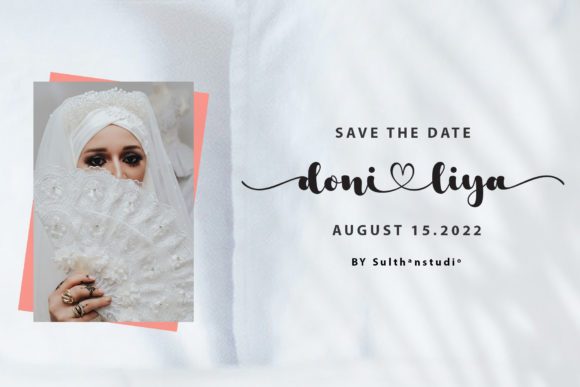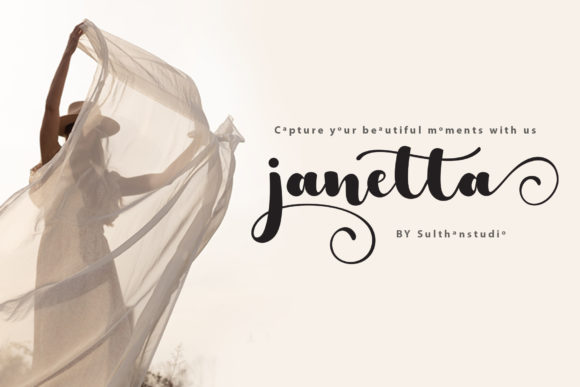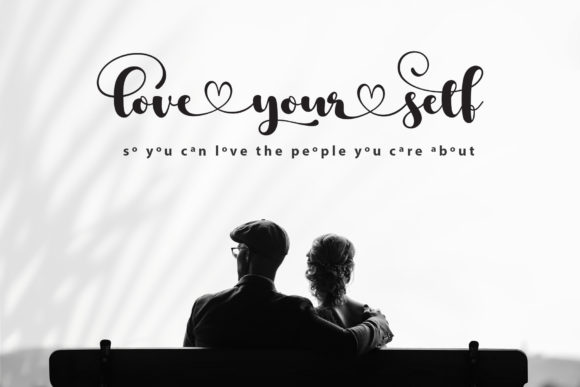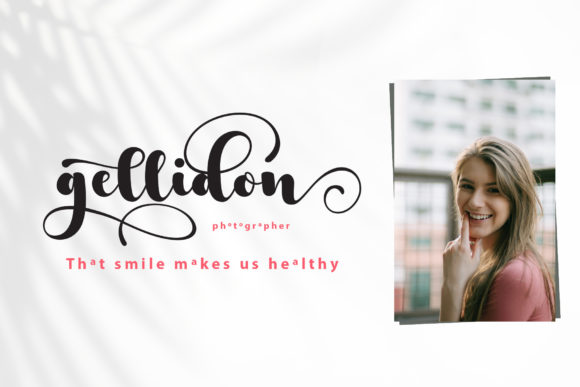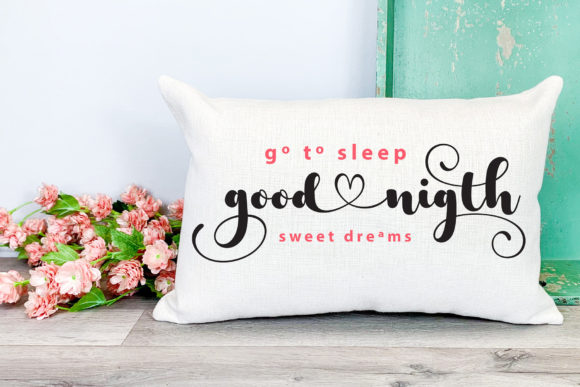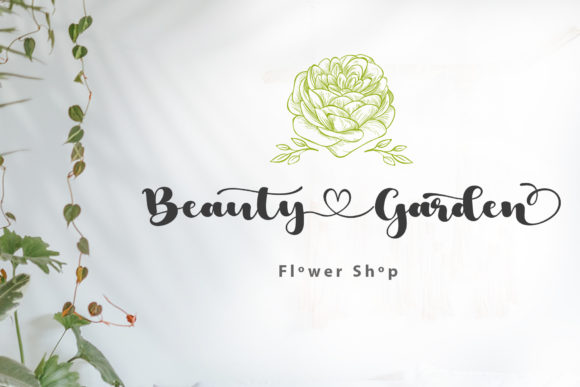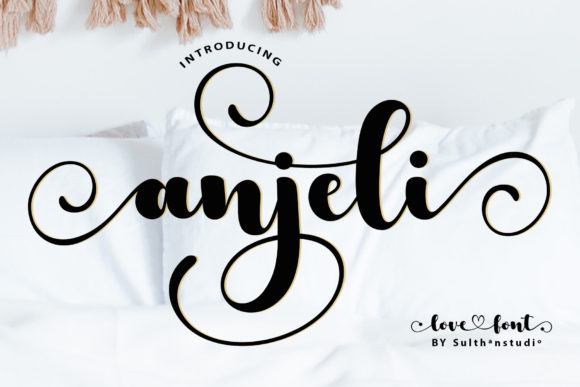
Introducing Anjeli Font: The Ultimate Calligraphy Typeface for Luxurious Designs
Are you a designer or crafter looking for a font that can add a touch of elegance and sophistication to your design projects? Look no further than Anjeli Font, a romantic and sweet calligraphy typeface that is sure to make your designs shine. With its unique and flowing characters that dance along the baseline, Anjeli Font is the perfect choice for anyone looking to add a luxury spark to their work.
What Makes Anjeli Font So Special?
Anjeli Font is a beautifully crafted calligraphy typeface that is designed to make your designs stand out. Its characters are carefully crafted to dance along the baseline, creating a sense of movement and fluidity that is sure to capture the eye. Whether you’re working on a branding project, a wedding invitation, or a packaging design, Anjeli Font is the perfect choice for adding a touch of elegance and sophistication.
PUA Encoding for Easy Access to Glyphs and Ligatures
One of the things that sets Anjeli Font apart from other fonts is its PUA (Private Use Area) encoding. This means that you can access all of the amazing glyphs and ligatures with ease, making it simple to create beautiful and unique designs. With PUA encoding, you don’t have to worry about complicated font editing software or tedious workarounds – simply install the font and start designing!
Anjeli Font is perfect for designers and crafters who want to add a touch of luxury to their work. Whether you’re creating digital designs or handmade crafts, this font is sure to inspire your creativity and help you produce stunning results. From wedding planners and stationery designers to crafters and makers, Anjeli Font is the perfect choice for anyone looking to add a touch of elegance and sophistication to their designs.
How to Use Anjeli Font in Your Designs
- Use Anjeli Font for headings and titles to add a touch of elegance and sophistication to your designs.
- Pair Anjeli Font with other fonts to create a unique and eye-catching design.
Benefits of Using Anjeli Font
There are many benefits to using Anjeli Font in your designs. Here are just a few:
- Adds a touch of elegance and sophistication to your designs.
- Unique and flowing characters that dance along the baseline.
- PUA encoded for easy access to glyphs and ligatures.
- Perfect for designers and crafters who want to create luxurious designs.
In conclusion, Anjeli Font is a beautiful and elegant calligraphy typeface that is perfect for designers and crafters who want to add a touch of luxury to their designs. With its unique and flowing characters, PUA encoding, and ease of use, Anjeli Font is the perfect choice for anyone looking to create stunning designs. So why wait? Download Anjeli Font today and start creating your own luxurious designs!
Key Features of Anjeli Font
- Romantic and sweet calligraphy typeface.
- Characters that dance along the baseline.
- PUA encoded for easy access to glyphs and ligatures.
- Perfect for designers and crafters.
- Adds a touch of elegance and sophistication to designs.
By incorporating Anjeli Font into your design projects, you’ll be able to create stunning and luxurious designs that are sure to impress. So why wait? Get started with Anjeli Font today and see the difference it can make in your designs!